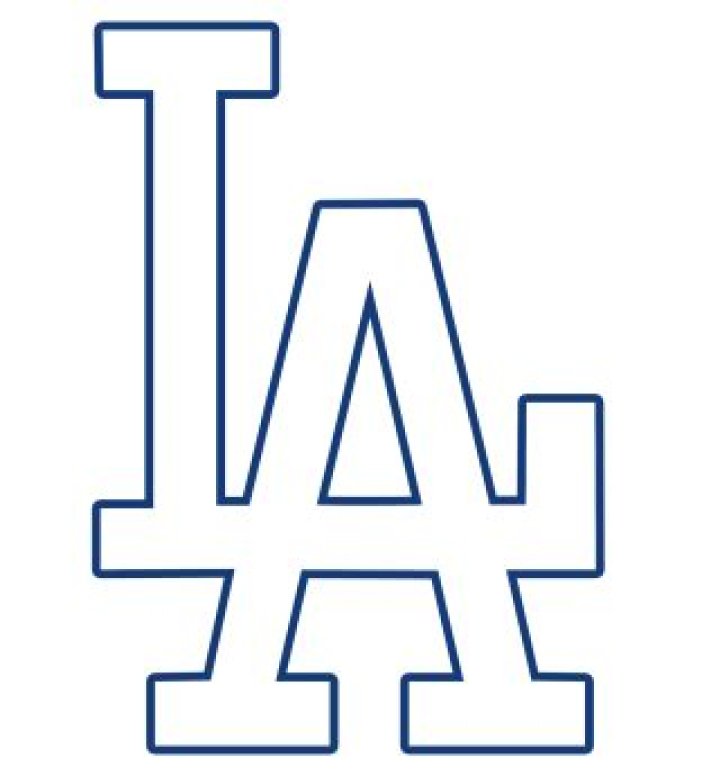
What font is LA Dodgers logo?
The LA Dodgers logo font today is a slanted script font, designed specifically for the team. The design is similar to things like Ballpark script and Philly sport. For the cap mark, you have a simple serif font with large serifs.
Who created the Dodgers logo?
Originally designed by Lon Keller, the iconic Dodgers script was introduced in the 1930s. Over the years, the team’s primary logo has undergone several evolutionary tweaks, with the latest modifications made by the organization in 2011.
Did the Dodgers change their logo?
In the move to Los Angeles, the Dodgers logo went through a change as the wordmark script 鈥淒odgers鈥 is now on a diagonal incline with red baseball above with red streaking lines. in front of a red flying baseball with streaks. Slanted scripted wordmark 鈥淒odgers鈥 in blue with an underscore.